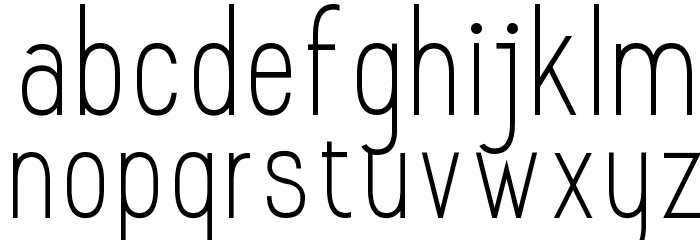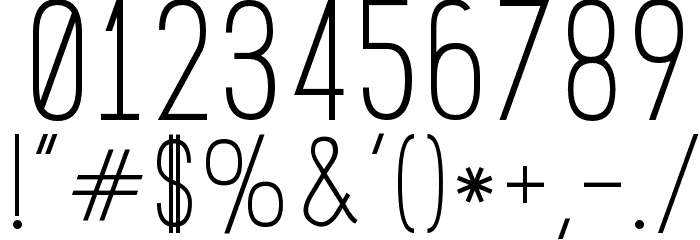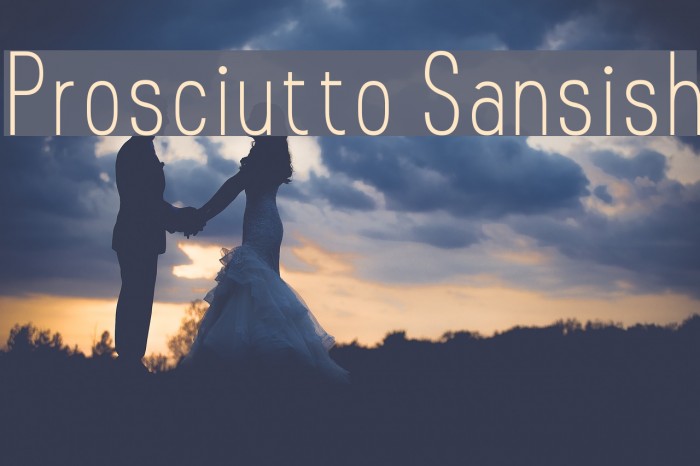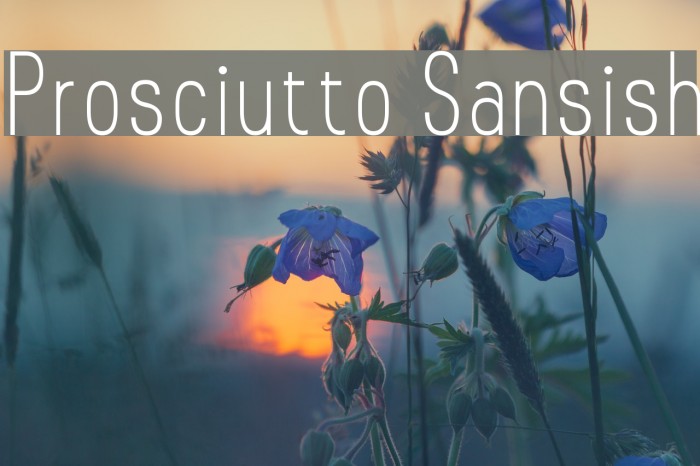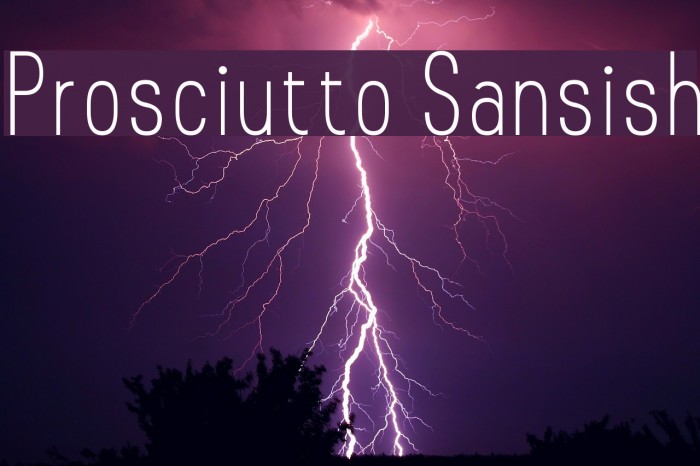
Prosciutto Sansish Font
This font features a clean and modern sans-serif style with a tall, narrow appearance. The characters are uniformly structured, offering a sleek and streamlined look. The uppercase letters are slightly taller than the lowercase, providing a balanced visual hierarchy. The numerals are consistent in height with the uppercase letters, ensuring readability. Special characters are designed to match the overall aesthetic, maintaining the font's cohesive appearance. The font's simplicity and elegance make it versatile for various design applications.
A modern, tall, and narrow sans-serif font with a clean and streamlined appearance.
- Proposed Projects: Ideal for branding, editorial design, web design, and advertising where a modern and clean look is desired.